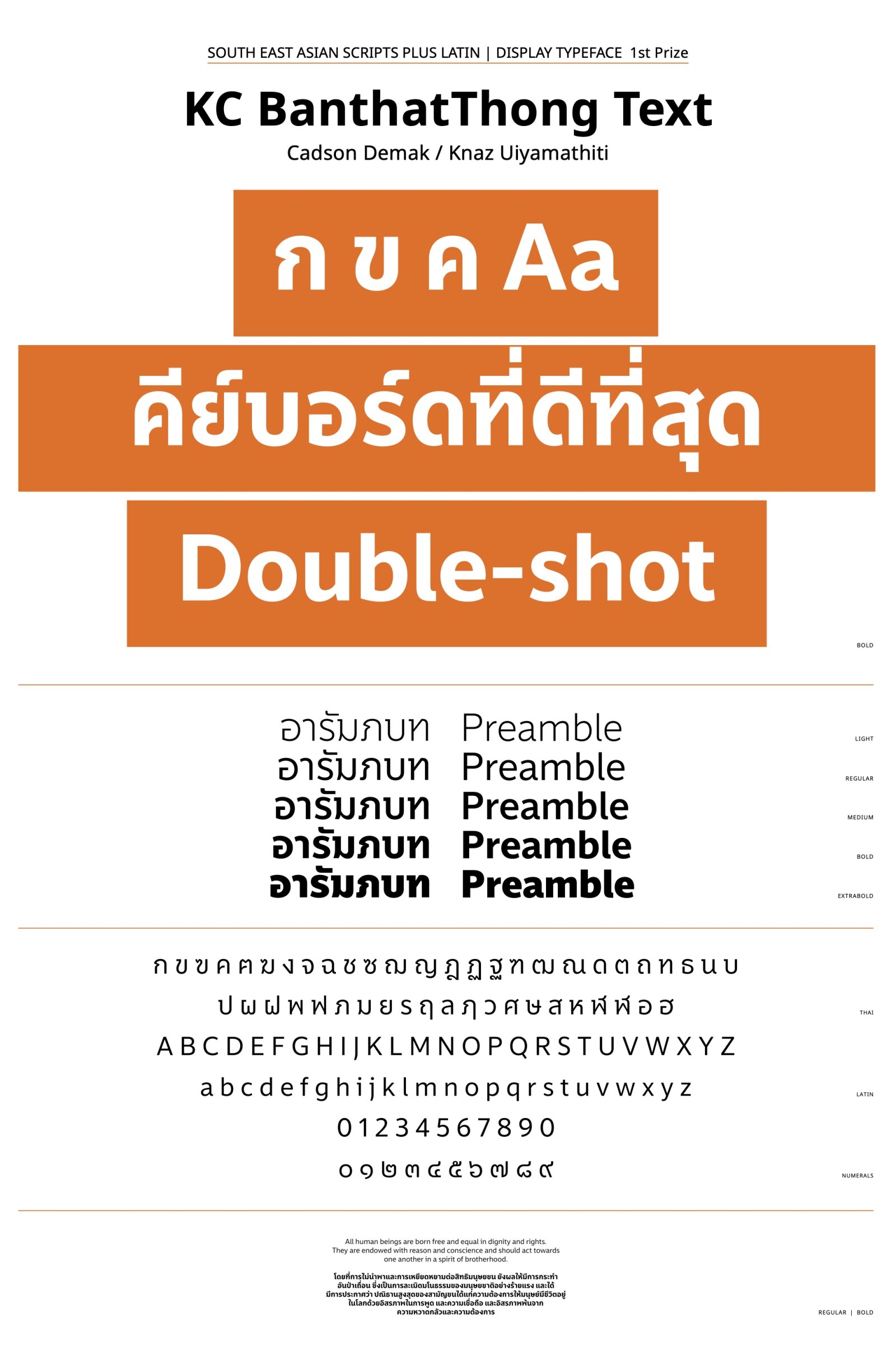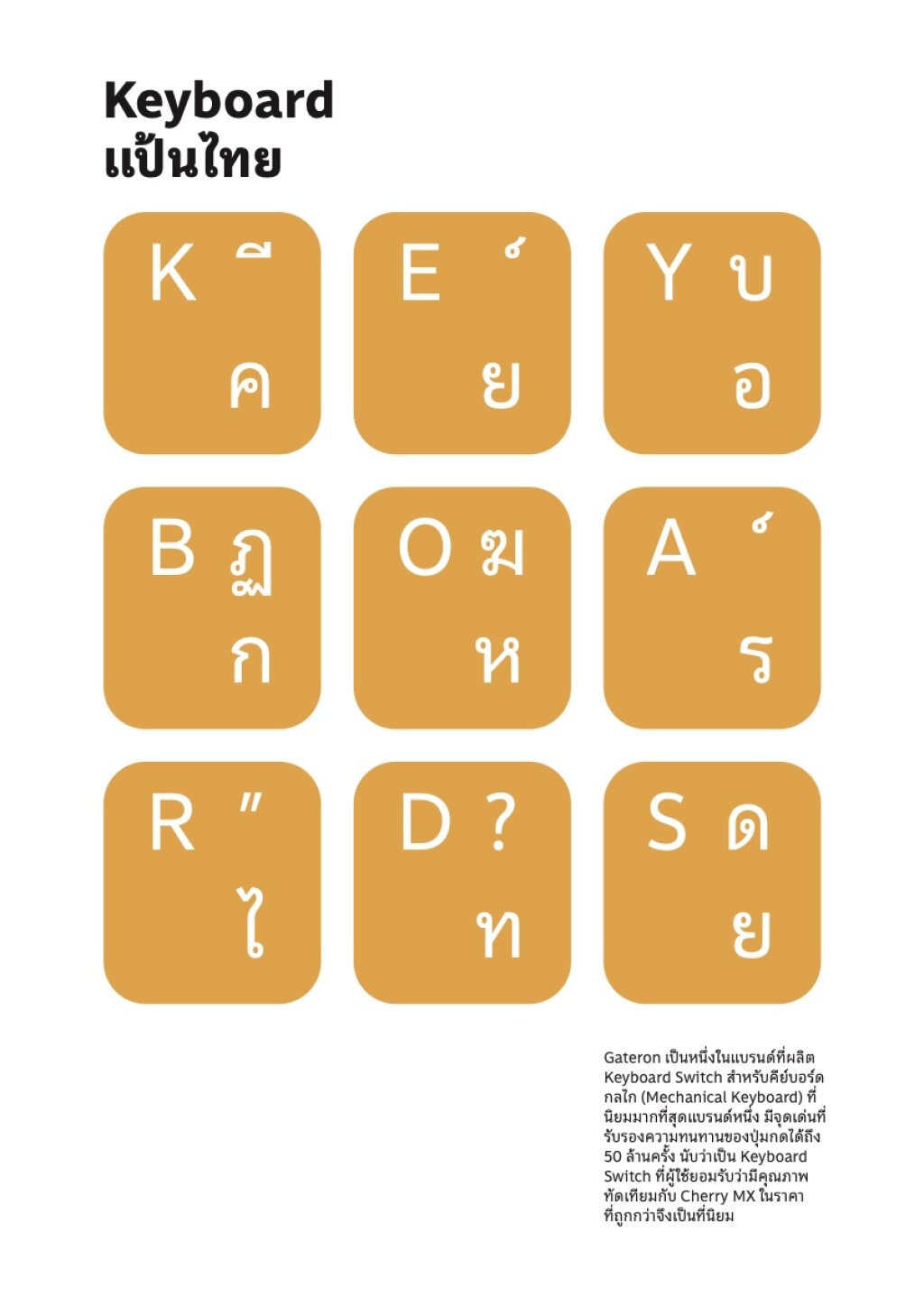
KC BanthatThong Text + Display
by Knaz Uiyamathiti
Southeast Asian Scripts
B1 Text Typefaces with a latin complement
This font is a Thai looped with Latin humanist sans typeface that was designed after its predecessor loopless or display version. It was designed for usage as a body text and is suitable for reading long texts. It borrows the modular system in the ‘joints’ that can also be found in its predecessor to maintain the typeface’s character and create a sense of harmony when paired together.